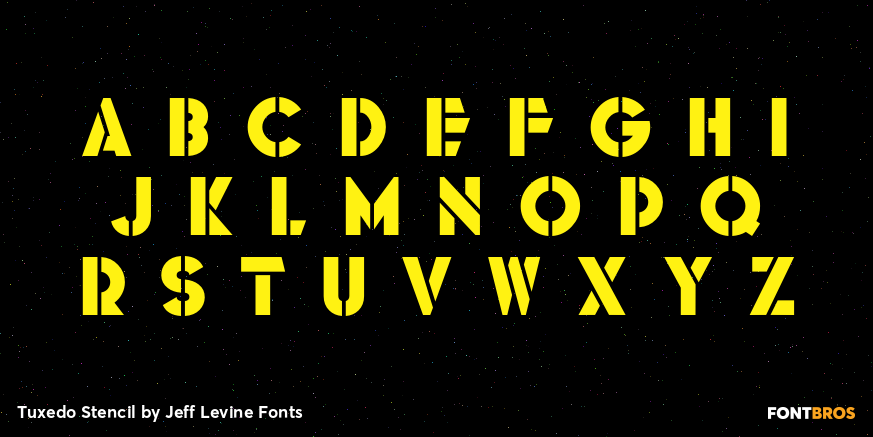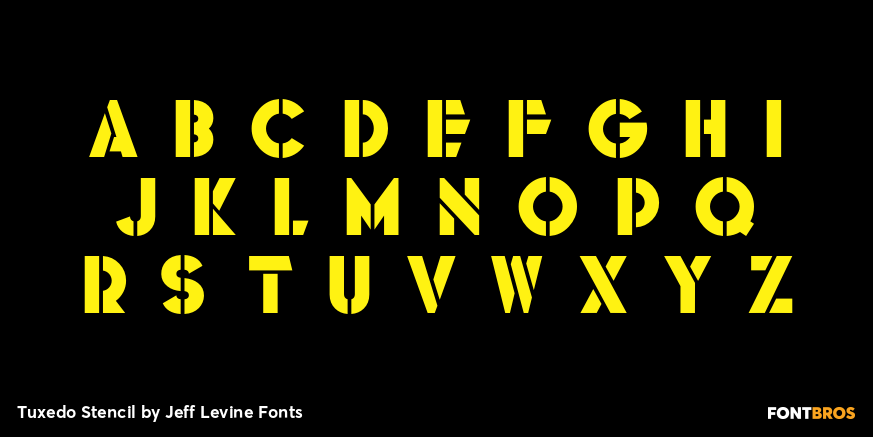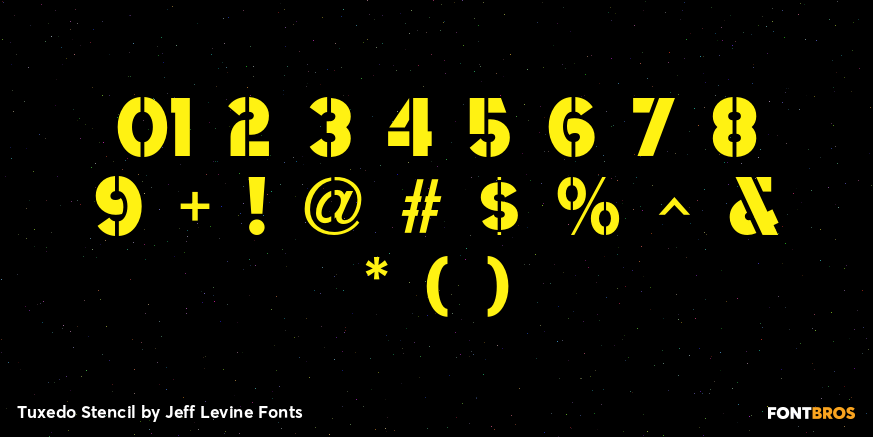
Tuxedo Stencil
Buy NowThe sheet music for the 1934 tune 'Two in A Dream' had the title hand lettered in a bold type style that utilized some stencil and some solid lettering.
Following through on the stencil portion of the design, Tuxedo Stencil JNL was created in both regular and oblique versions.
The 1930s were the era of elegant supper clubs and night spots, and it was not unusual to find gentlemen all decked out in formal wear for an evening on the town, hence the font's name.